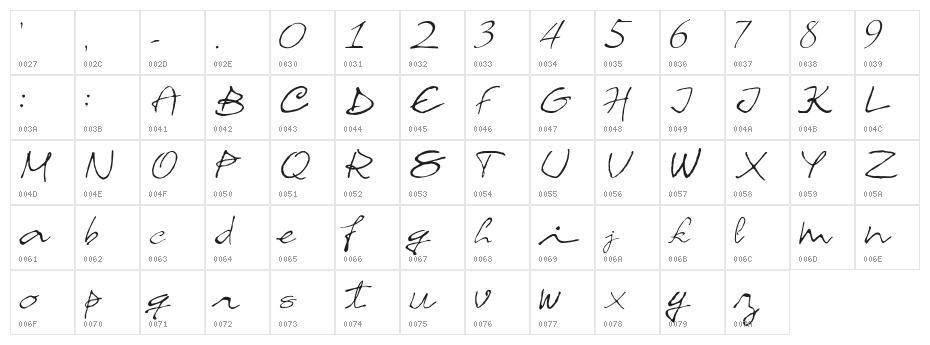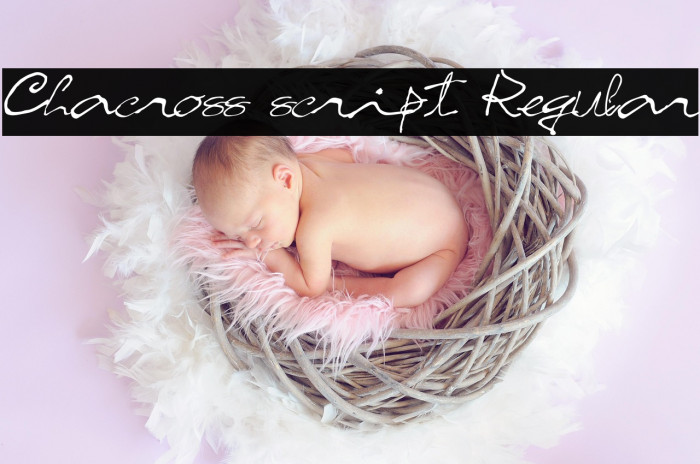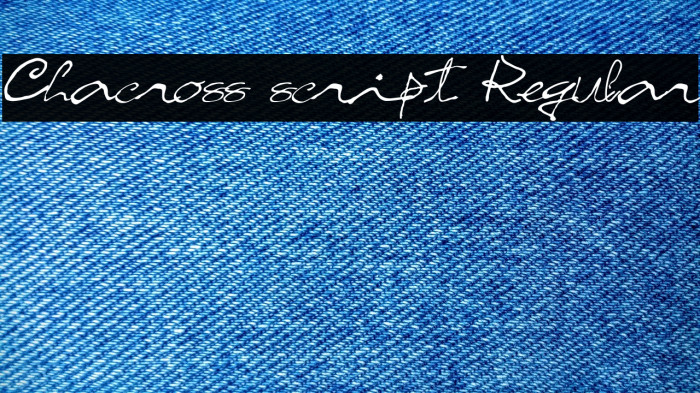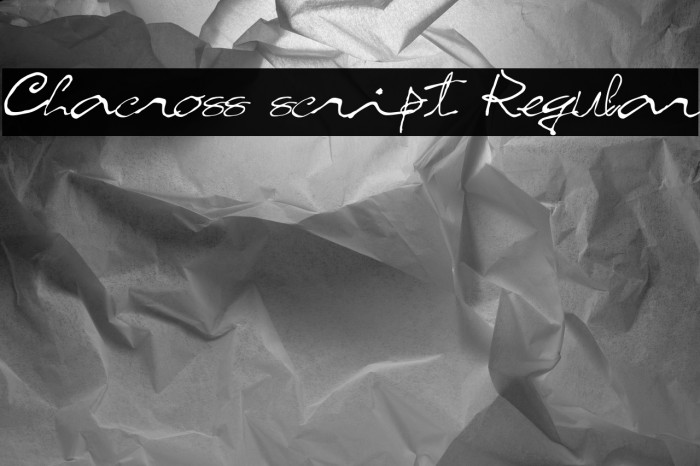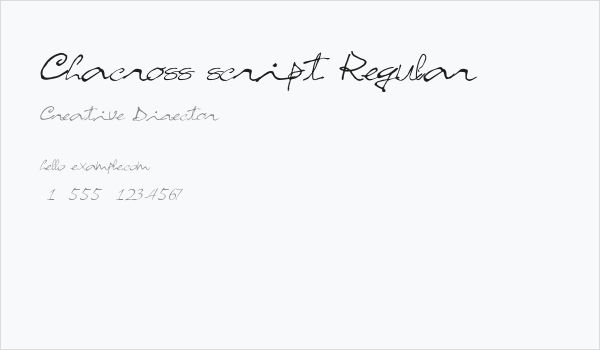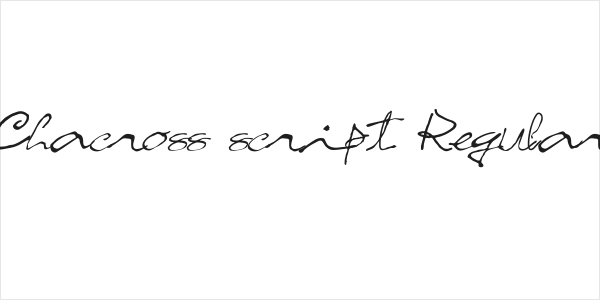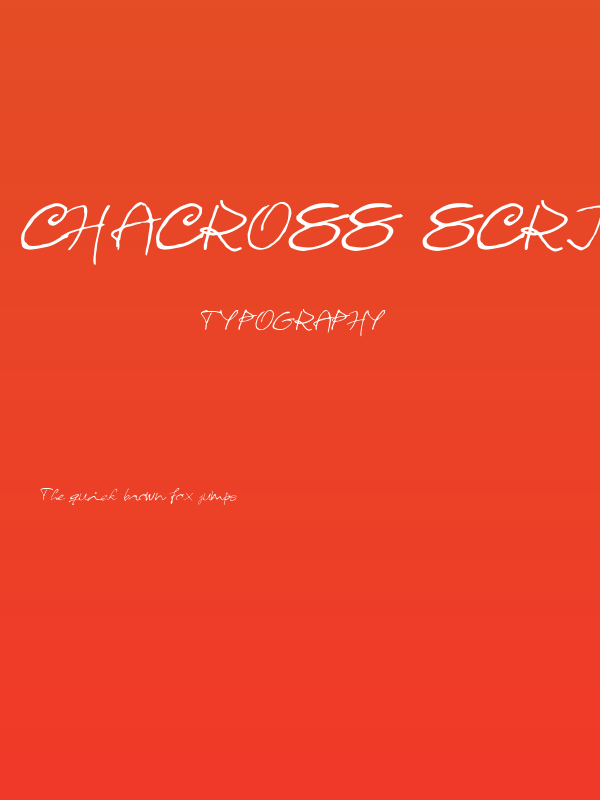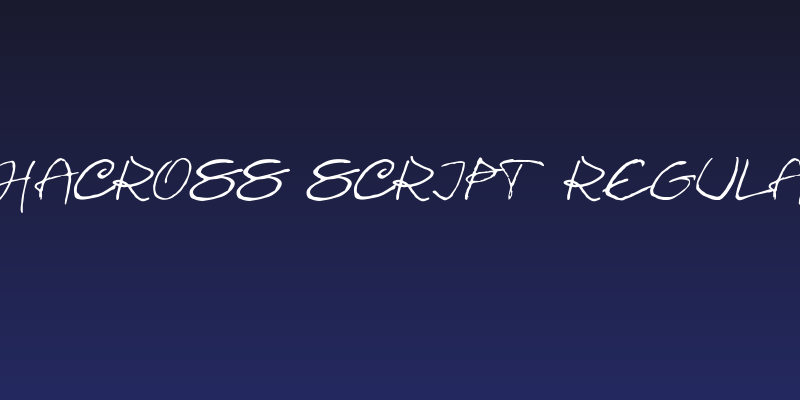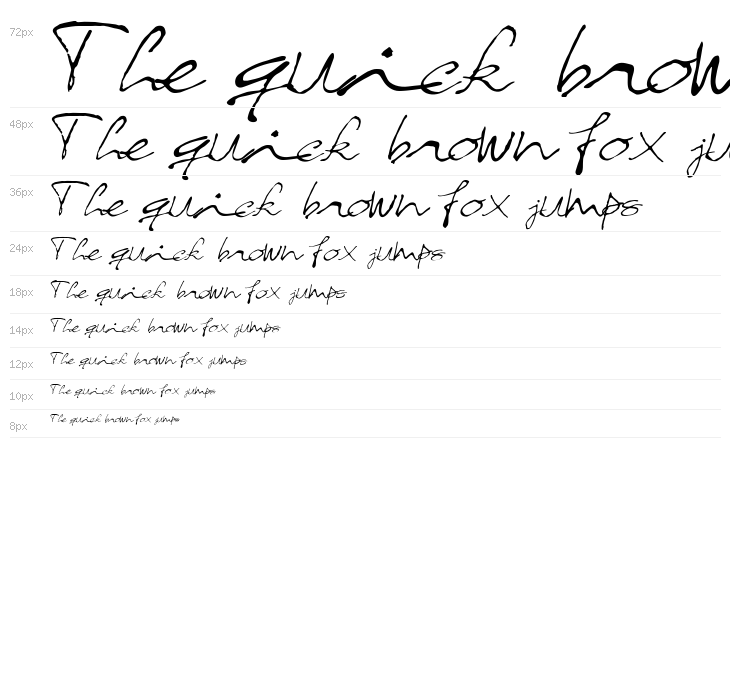
Chacross script Regular Font
Chacross script Regular Description
This font exudes a dynamic and expressive handwritten style, characterized by its fluid and cursive strokes. The letters are connected in a natural flow, mimicking the appearance of elegant penmanship. The uppercase letters maintain a consistent height, while the lowercase letters vary in size, adding to the organic feel. The numerals and special characters are crafted with the same attention to detail, ensuring a cohesive look throughout. The overall design is both artistic and legible, making it suitable for creative projects that require a personal touch.
| Use Case | Logos, Headlines, Artistic projects |
| Proposed Projects | Ideal for wedding invitations, greeting cards, personal branding, and artistic projects. |